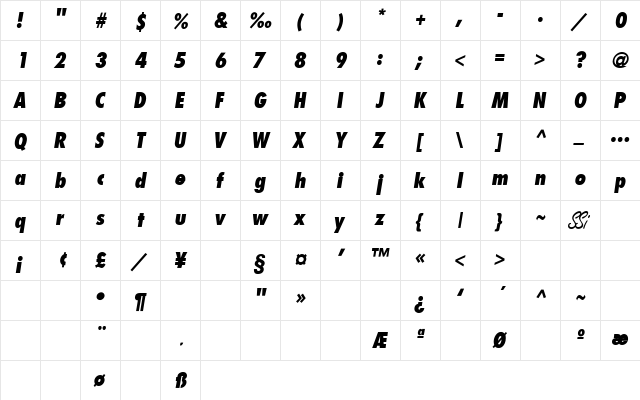
Kudos Condensed SSi Semi Bold Condensed Italic Font Preview
Design Context for Kudos Condensed SSi Typeface
Kudos Condensed SSi offers clean, dependable letterforms without strong stylistic allegiance, making it a practical choice for designers who need flexibility. Its italic angle brings a sense of urgency and motion to the letterforms. Its bold stroke weight gives it real presence on the page. Its narrow stance lets it pack a punch even in space-constrained designs.
Pro Tip: Try Kudos Condensed SSi for annotation and caption copy alongside an upright companion — the contrast in angle creates a dynamic but ordered typographic system.